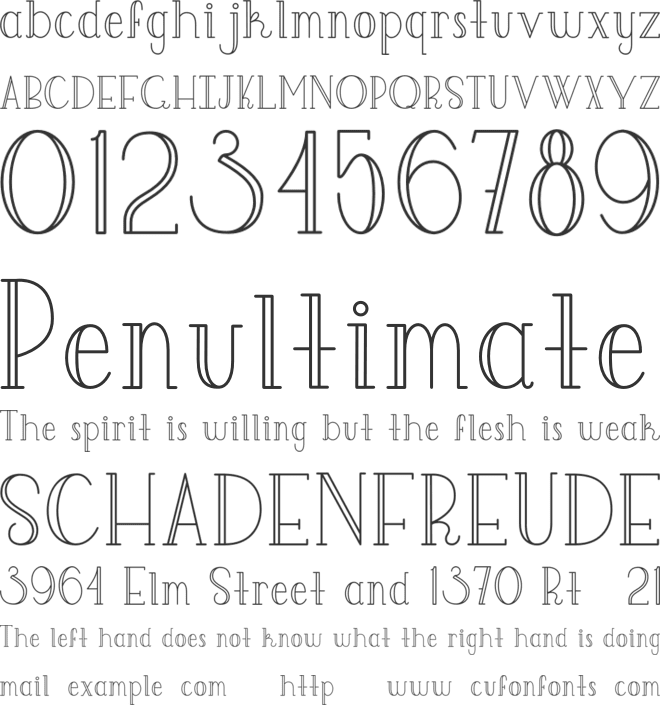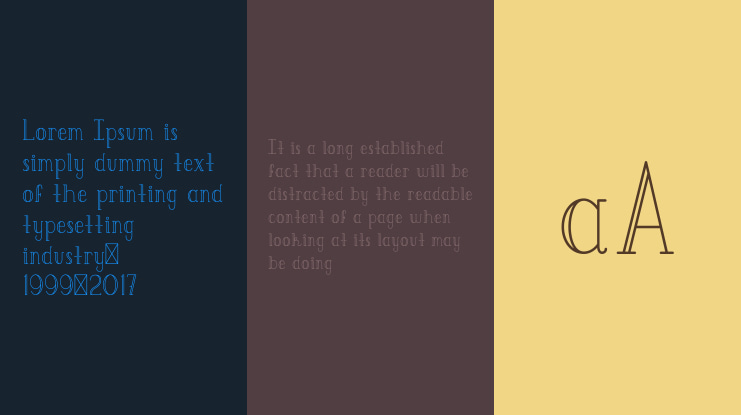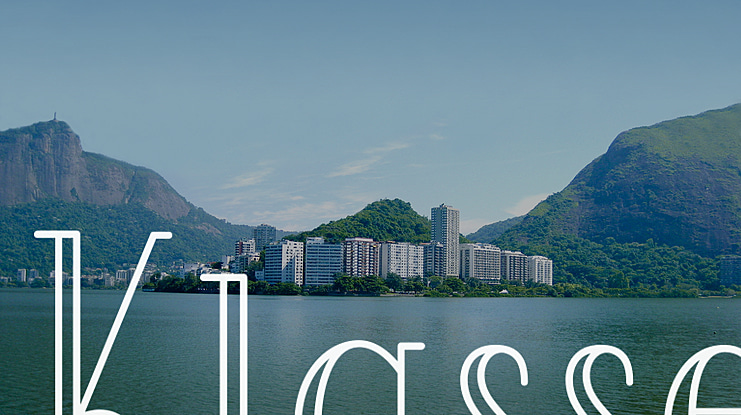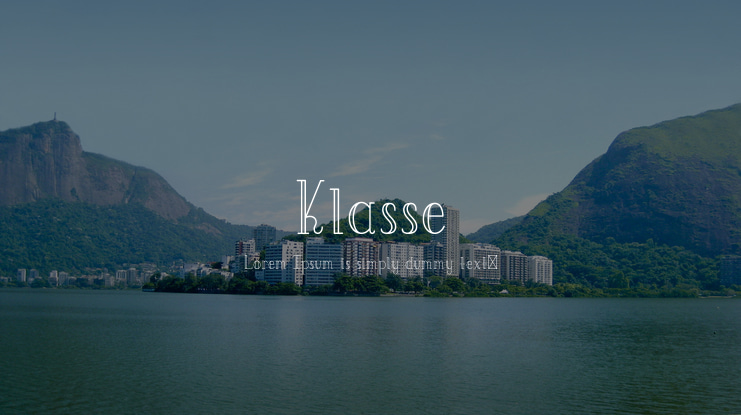
Klasse Font
Ian Shapen
This font was created based on a found type specimen from a Ivo Pannaggi Poster. It is a Art Deco style, serif font made to be used as an accent and title font.